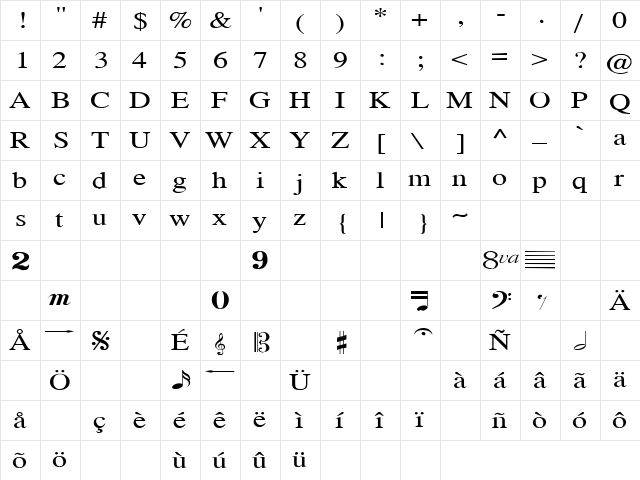
Woman Of The World 12 Regular Font Preview
Woman Of The World 12 Regular
Woman Of The World 12 Regular Font Details
Design Context for Woman Of The World 12 Typeface
Woman Of The World 12 offers clean, dependable letterforms without strong stylistic allegiance, making it a practical choice for designers who need flexibility.